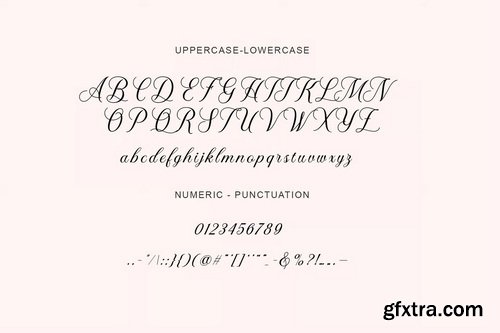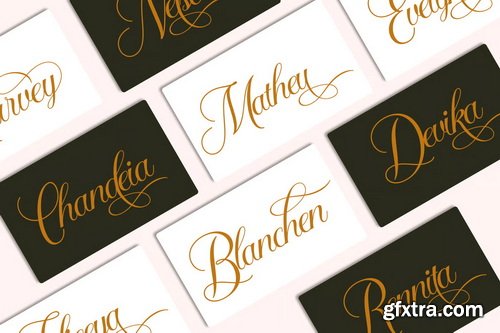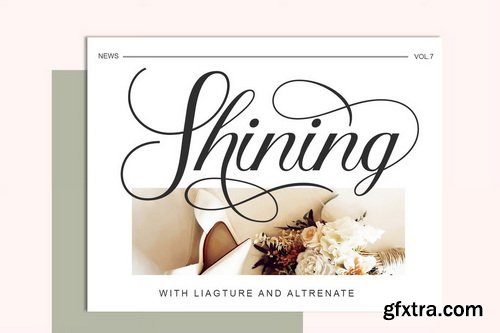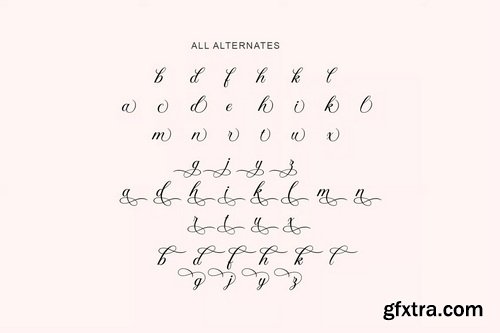
Ashley Script Font
Ashley will perfect for many project: book, magazines, logo, branding, photography, quotes, blog header, poster, advertisements, etc.